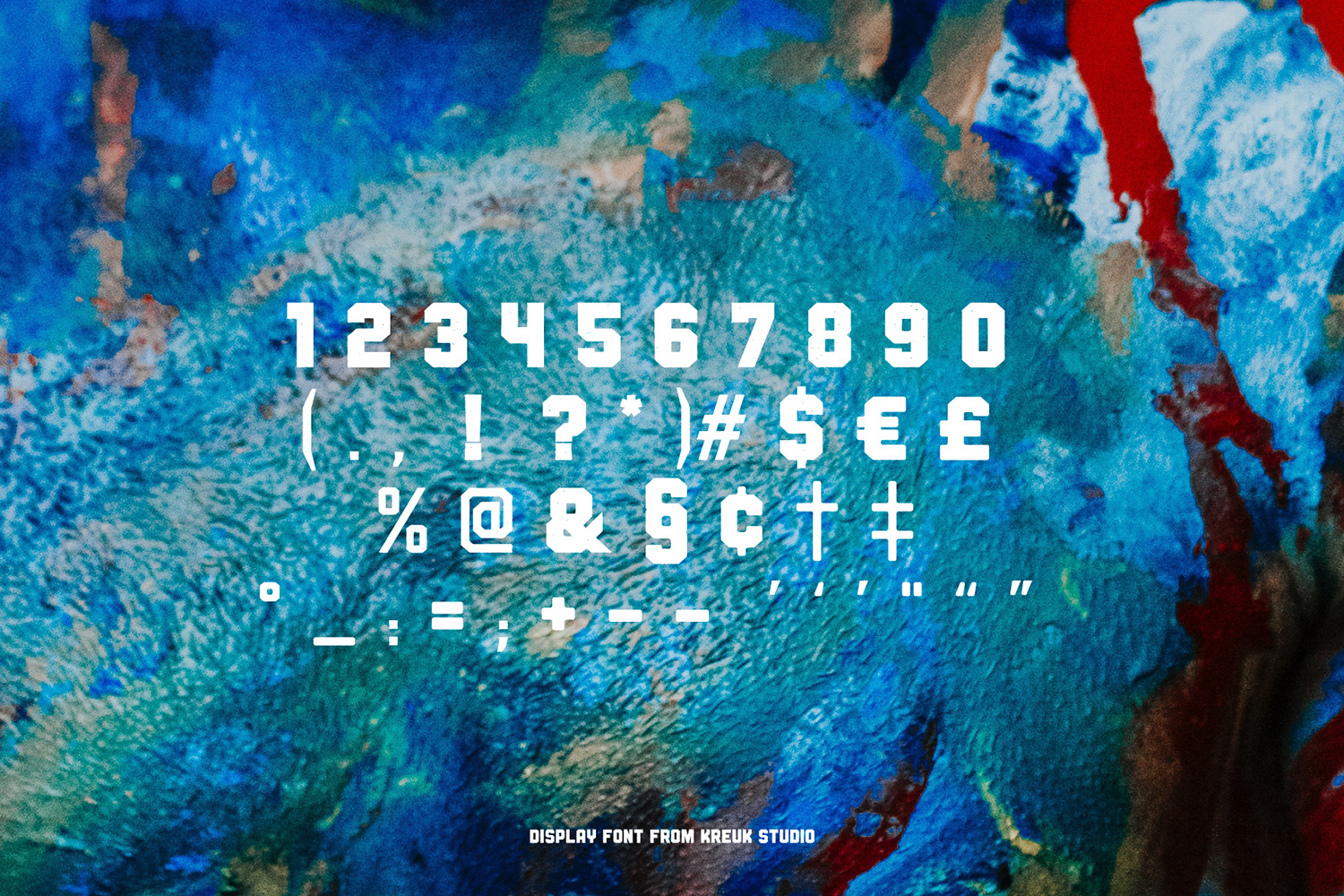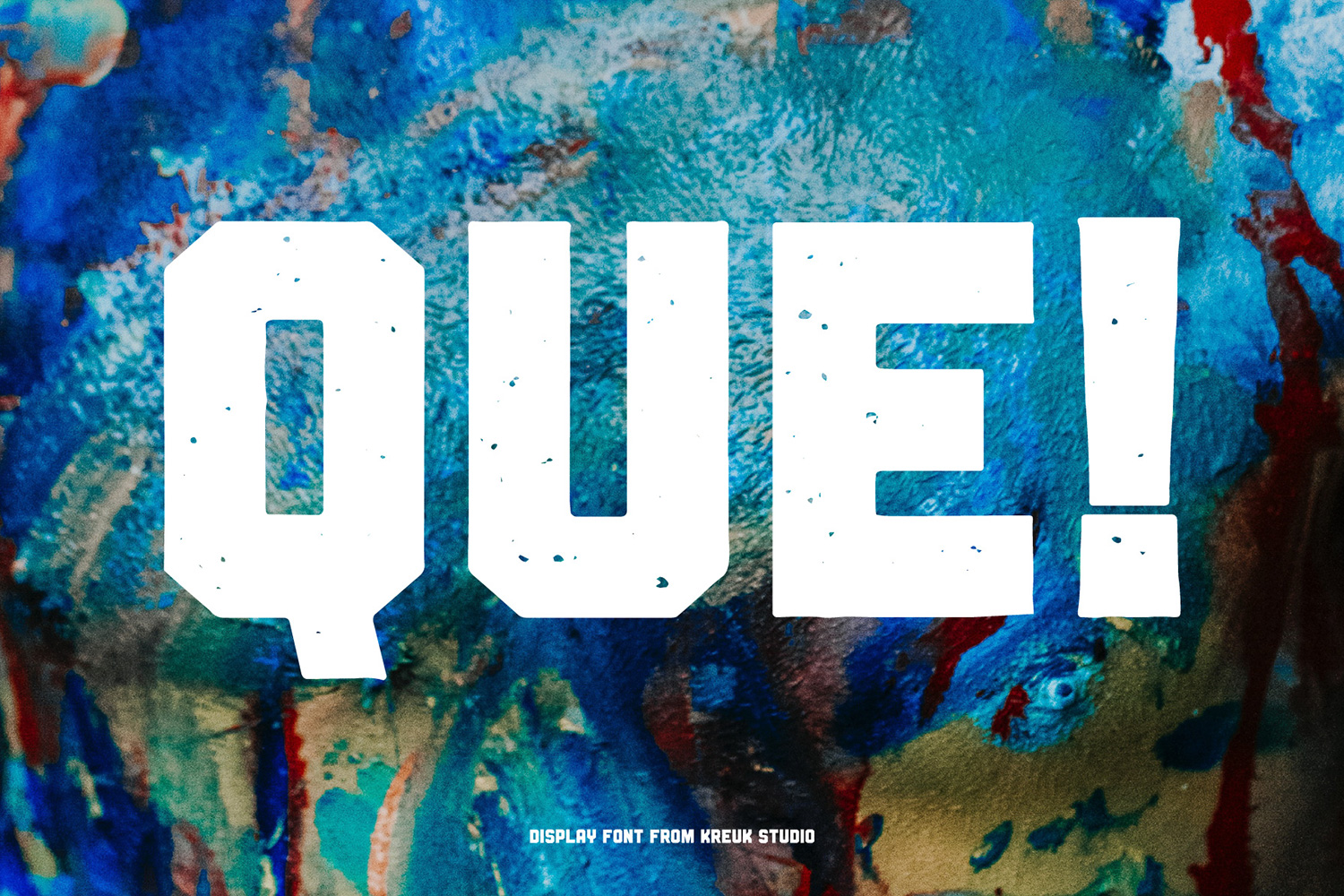
Introduction to Midfield Pressed Font
You know that moment when you’re brainstorming ideas for your next creative project, and suddenly everything clicks into place? The colors, the typography, the overall aesthetic – it all comes together in a beautiful harmony. For many designers, that moment is often sparked by discovering the perfect font. And for those who love sports-inspired designs or elegant displays, the Midfield Pressed Font is sure to be a game-changer.
This high-quality font is not only bold and beautiful but also versatile enough to suit a wide range of design styles. Whether you’re working on a free download for a sports-themed website or a design resource for a high-end fashion brand, the Midfield Pressed Font is an excellent choice. With its transparent background, it can easily be layered over other design elements to create a stunning visual effect.
As a valuable addition to any designer’s toolkit, the Midfield Pressed Font is a must-have for any creative project. Its neutral tone makes it suitable for a variety of designs, from feminine and elegant to sporty and bold. So why not give it a try and see how it can elevate your next design project?
Key Features of Midfield Pressed Font
- High-quality design resource for creative projects, ideal for use in various digital applications.
- Features a transparent background, making it easy to overlay on different images and backgrounds.
- Includes a range of glyphs, including uppercase and lowercase letters, numbers, and special characters.
- Unique characteristics include a pressed, textured feel that adds depth and visual interest to designs.
- Suitable for use in a variety of creative projects, from logos and branding to digital art and graphics.
Honest Review: Midfield Pressed Font
I recently stumbled upon the Midfield Pressed Font, and I must say it’s a great addition to my design resource library. The font is perfect for creative projects that require a modern and edgy touch. ✨
One of the standout features of the Midfield Pressed Font is its high-quality design. The font is well-crafted, with clean lines and a professional look that’s perfect for use in a variety of contexts. The free download option is also a major plus, making it accessible to designers of all levels.
- Modern and edgy design ✨
However, I do have a few criticisms. The font doesn’t have a transparent background, which can make it difficult to use in certain design situations. Additionally, the font family is relatively small, which may limit its use in certain contexts. ⚠️
Overall Impression:
Overall, I’m impressed with the Midfield Pressed Font. While it has a few limitations, its high-quality design and free download option make it a valuable resource for designers. I’ll definitely be adding it to my design library for future use.
Tips for Getting the Most Out of Midfield Pressed Font
Experiment with different font sizes and colors to create a visually appealing design. Use the font in combination with other design elements to add depth and interest to your project. Consider using the font in a creative project, such as a brochure or flyer, to grab the attention of your target audience.
Common Use Cases for Midfield Pressed Font
Midfield Pressed Font is perfect for designers who want to add a touch of elegance and sophistication to their projects. Use it in a variety of creative projects, such as business cards, menus, and invitations. The font’s high quality and transparent background make it an ideal choice for designers who want to create stunning visuals.